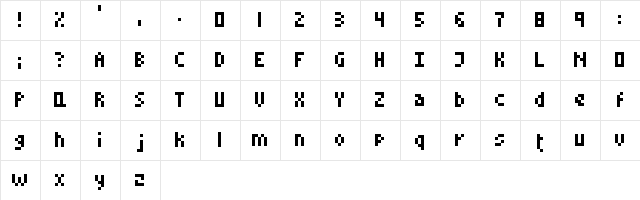
Little Conquest Regular Font Preview
Little Conquest Regular
| Designer | Bitty |
Design Context for Little Conquest Typeface
Little Conquest takes a measured approach to typography — its balanced proportions and neutral character make it a reliable workhorse for both digital and print work.